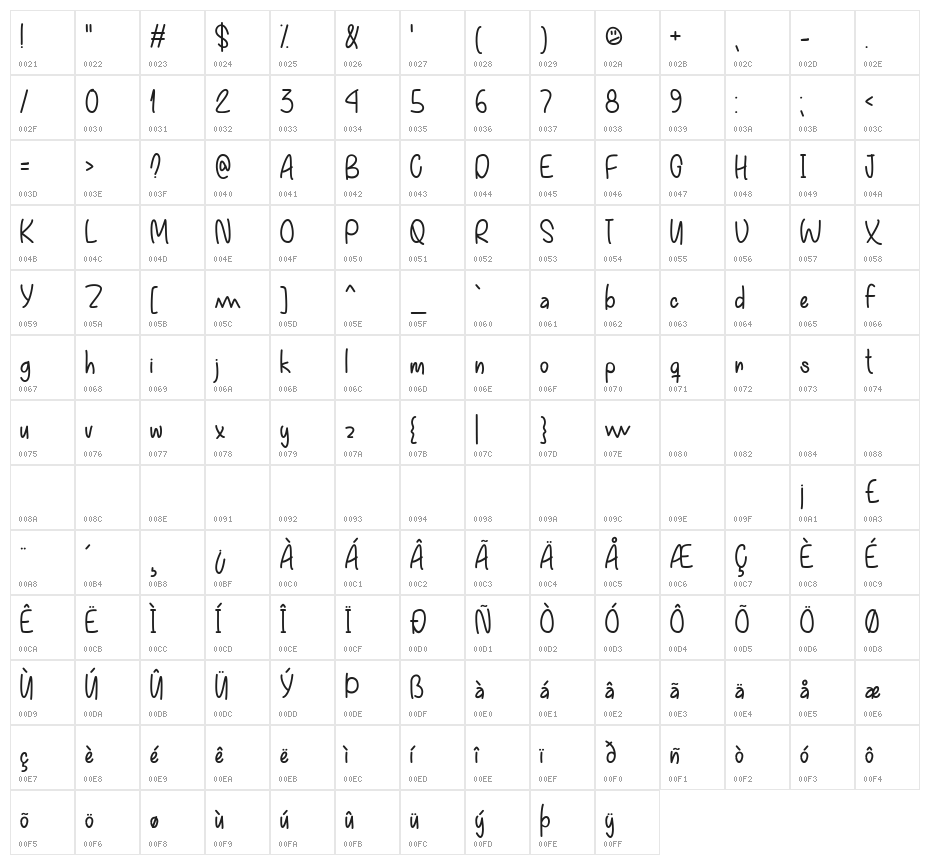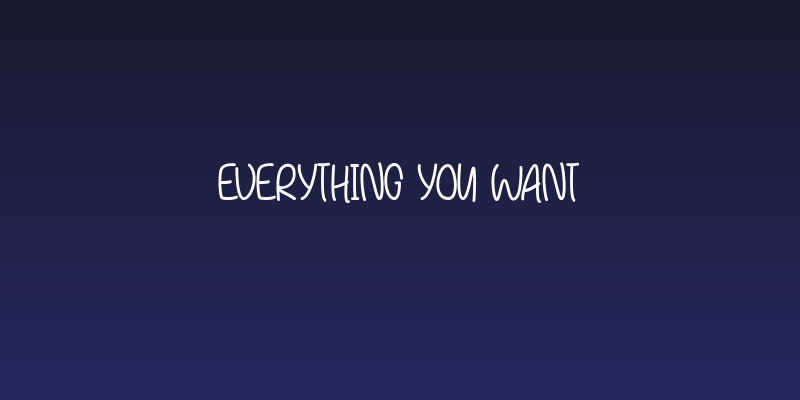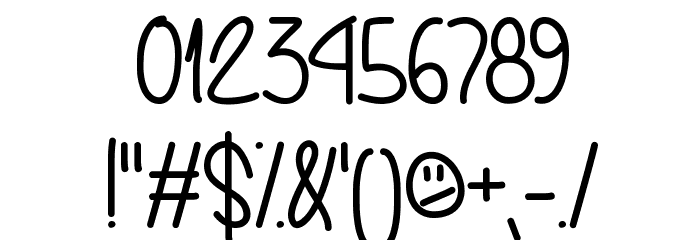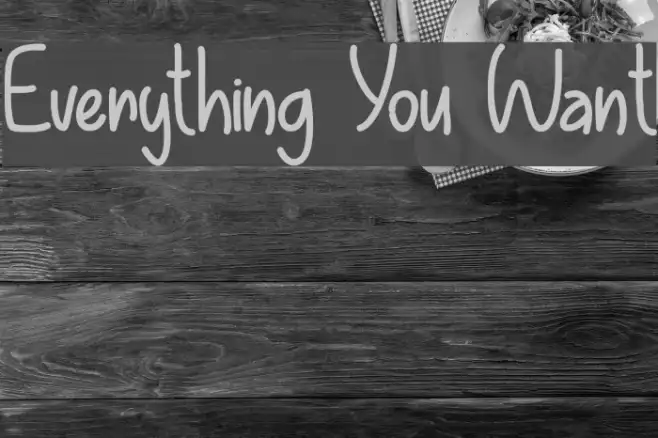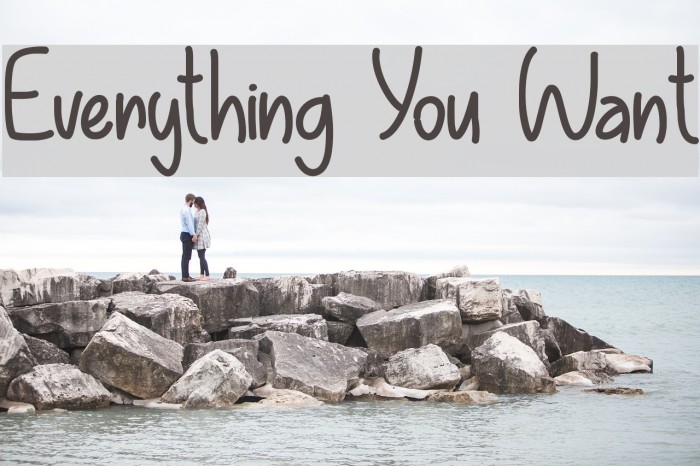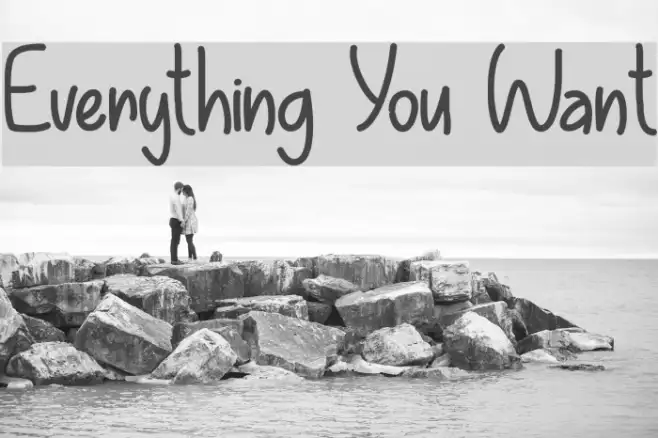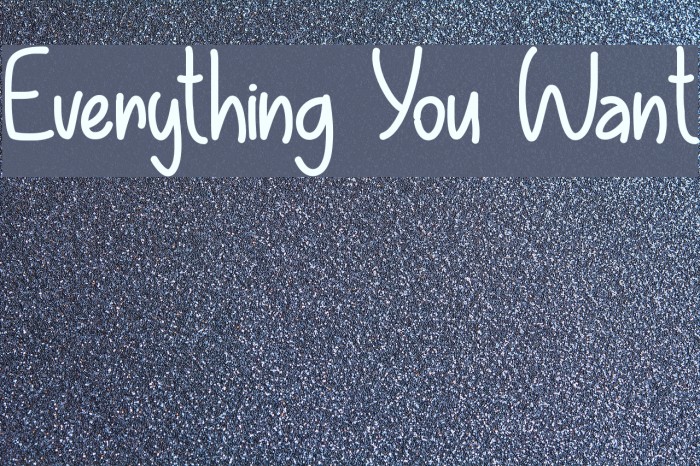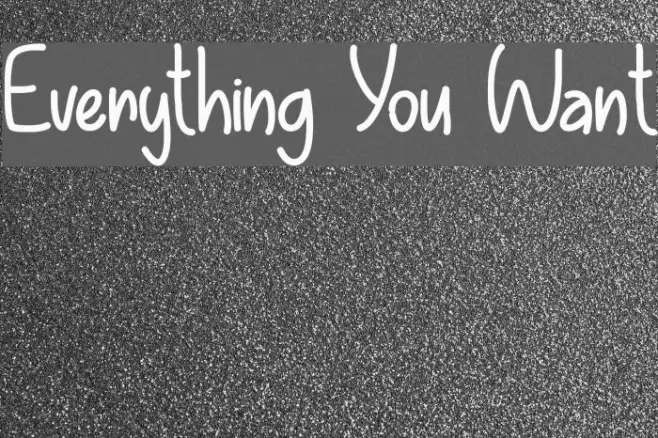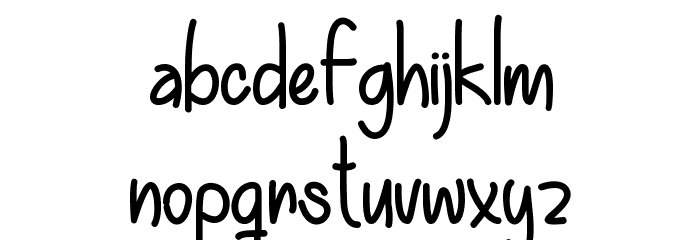
Everything You Want Font
Everything You Want Description
This playful and whimsical font features a handwritten style with smooth, rounded edges and a casual appearance. The letters are slightly elongated, giving them a tall and narrow look, while maintaining a friendly and approachable feel. The uppercase and lowercase characters are consistent in style, with a slight slant that adds to the informal nature of the font. The numerals and special characters are designed to match the overall aesthetic, ensuring a cohesive look across all text elements. This font is perfect for projects that require a personal touch, such as invitations, greeting cards, or playful branding materials.
| Proposed Projects | Ideal for invitations, greeting cards, playful branding, and personal projects. |